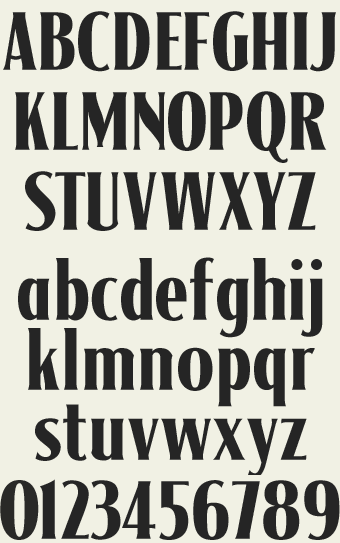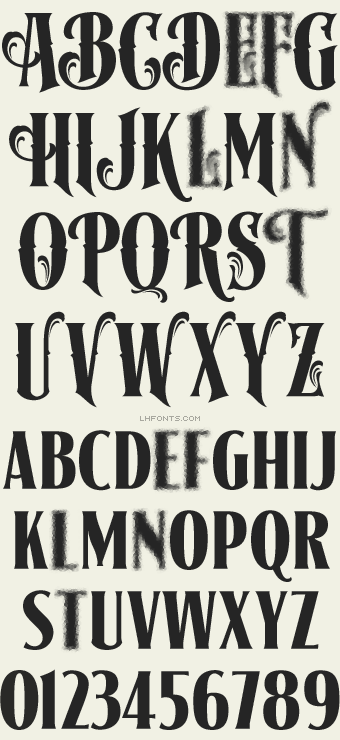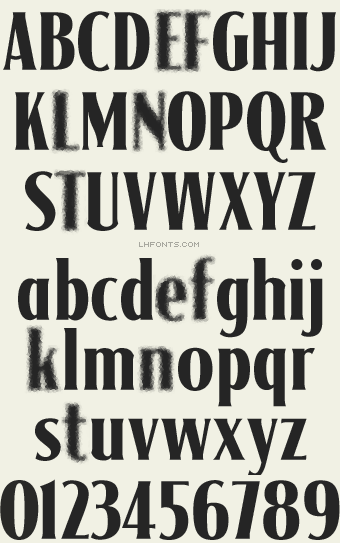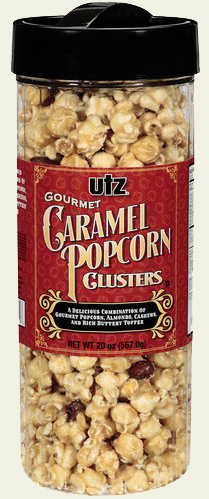
SIGNMAKER WITH CONFECTION ESSENTIALS & HENSLER 2
SIGNMAKER ON HBO'S 'BOARDWALK EMPIRE'
SIGNMAKER WITH CLASSIC PANELS 2 & EPHEMERA
Signmakerby Dave Correll |
Superb old fashioned lettering from sign artist Dave Correll. Includes two versions: Regular and Fancy. Fancy has special ornamental caps on the uppercase keys and small plain caps on the lowercase keys. Regular features plain caps on the uppercase keys with lowercase letters on the lowercase keys. Both fonts include alternates and bonus scrolls on the * and + keys.
LHF Signmaker Fancy
LHF Signmaker Regular